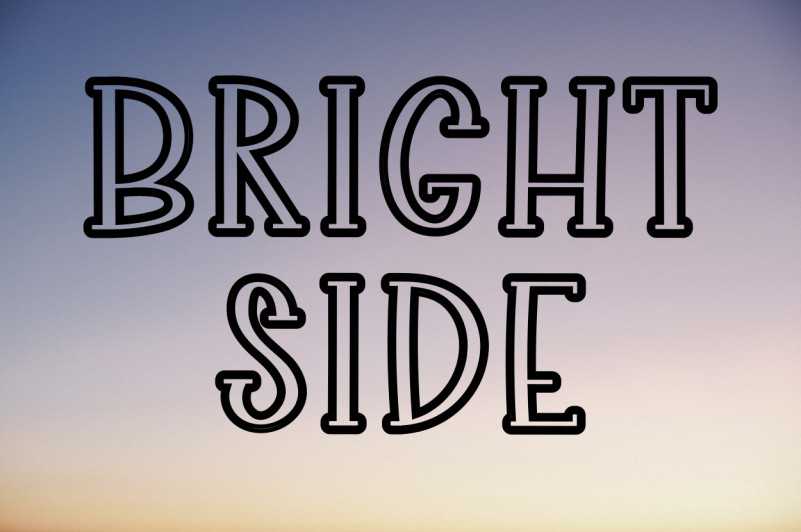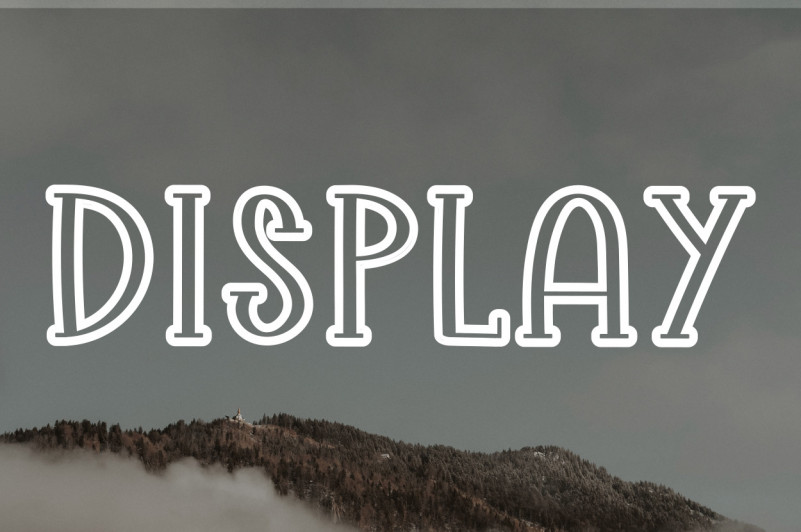
Show Time Font
Show Time Display Font
This is a simple, readable and bold display font. No matter the topic, this font will be an incredibly asset to your fonts’ library, as it has the potential to elevate any creation.